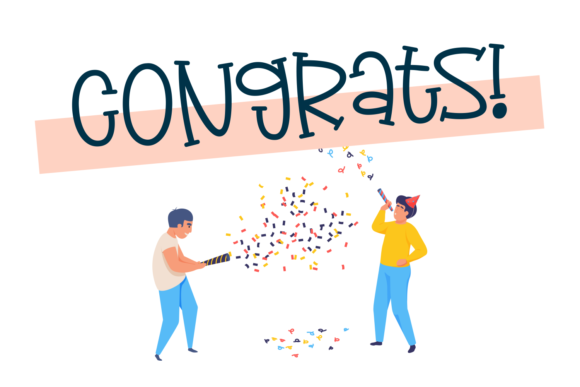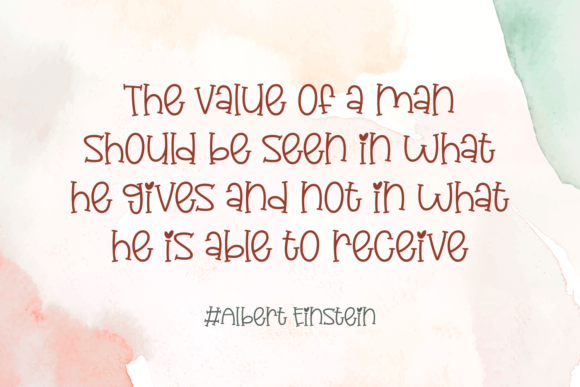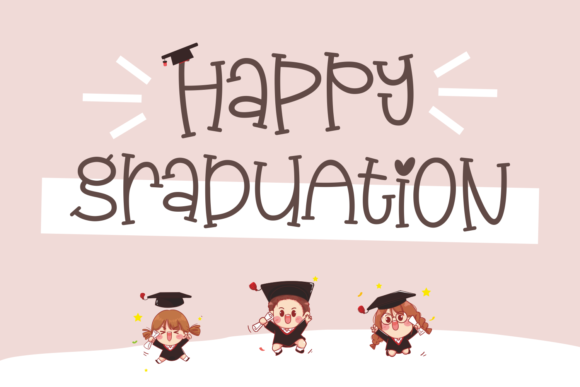
Introduction to Hey Jenie Font
Hey Jenie is a cute and quirky display font.
No matter the topic, this font will be an incredibly asset to your fontsโ library, as it has the potential to elevate any creation .
Key Features of Hey Jenie Font